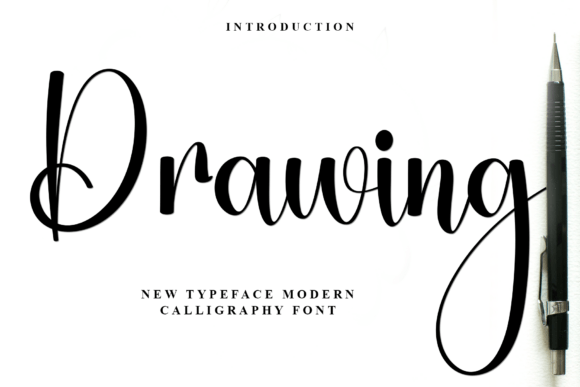
Discover the Magic of Drawing Font
Do you remember that moment when you first picked up a pencil and let your creativity flow onto paper? The thrill of bringing your ideas to life, the satisfaction of seeing your imagination take shape – it’s a feeling that never gets old. And for designers, that moment is what makes all the difference. It’s the spark that ignites a new project, a fresh idea, or a bold statement.
That’s where Drawing Font comes in – a beautiful and eye-catching font designed to capture the essence of your creativity. With its soft, unique touch and distinctive strokes, it’s the perfect addition to any design project, craft, or creative work. Whether you’re a seasoned pro or just starting out, Drawing Font is the ideal choice for bringing your ideas to life.
Drawing Font Key Features
- Vector Graphics: As a vector-based font, Drawing Font maintains crisp and clear text at any resolution, making it ideal for large-scale applications and high-resolution printing.
- Customizable: Users can customize the font to their liking by adjusting the size, color, and style to suit their design needs.
- Multi-Language Support: The font includes support for multiple languages, making it a versatile option for global applications.
- Scalable: Drawing Font is designed to scale well, allowing users to easily adjust the font size without compromising on quality or readability.
Designing with “Drawing Font”
Overall, I have mixed feelings about “Drawing Font”. Here’s my honest review:
- Playful, creative vibe: “Drawing Font” does a great job of capturing the whimsical essence of hand-drawn typography.
- Unique character shapes: Each character has a distinct personality, making it perfect for adding some visual interest to your designs.
- High-quality illustrations: The illustrations accompanying the font are beautiful and add to the overall aesthetic.
- Limited versatility: While it’s great for creative projects, “Drawing Font” might not be the best choice for more formal or professional designs.
- Not suitable for small text: Due to its unique character shapes, “Drawing Font” doesn’t work well for small text sizes.
- No language support: Unfortunately, “Drawing Font” only supports a limited number of languages.
While “Drawing Font” has its limitations, it’s still a great choice for creative projects or designs where a playful, hand-drawn feel is desired. Just be aware of its limitations and use it accordingly.
Drawing fonts are commonly used in:
- Graphic design and